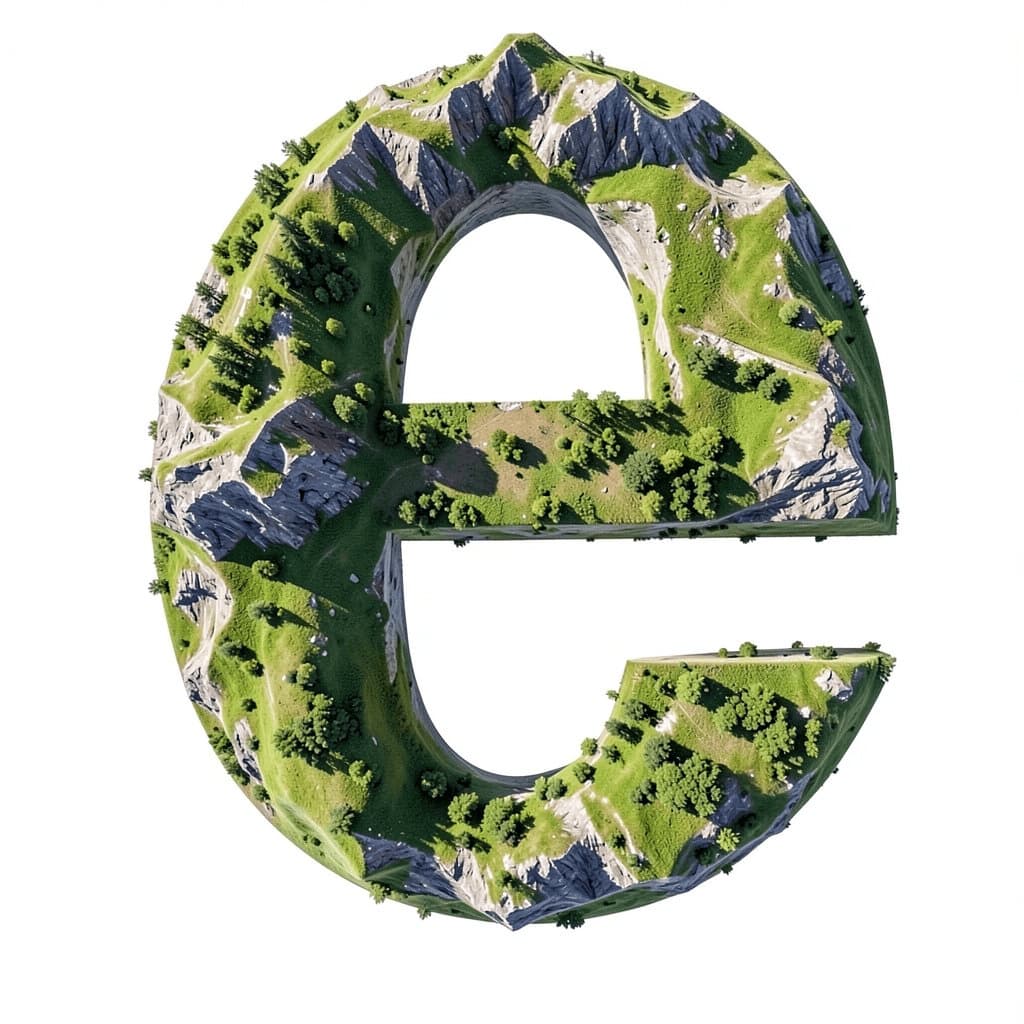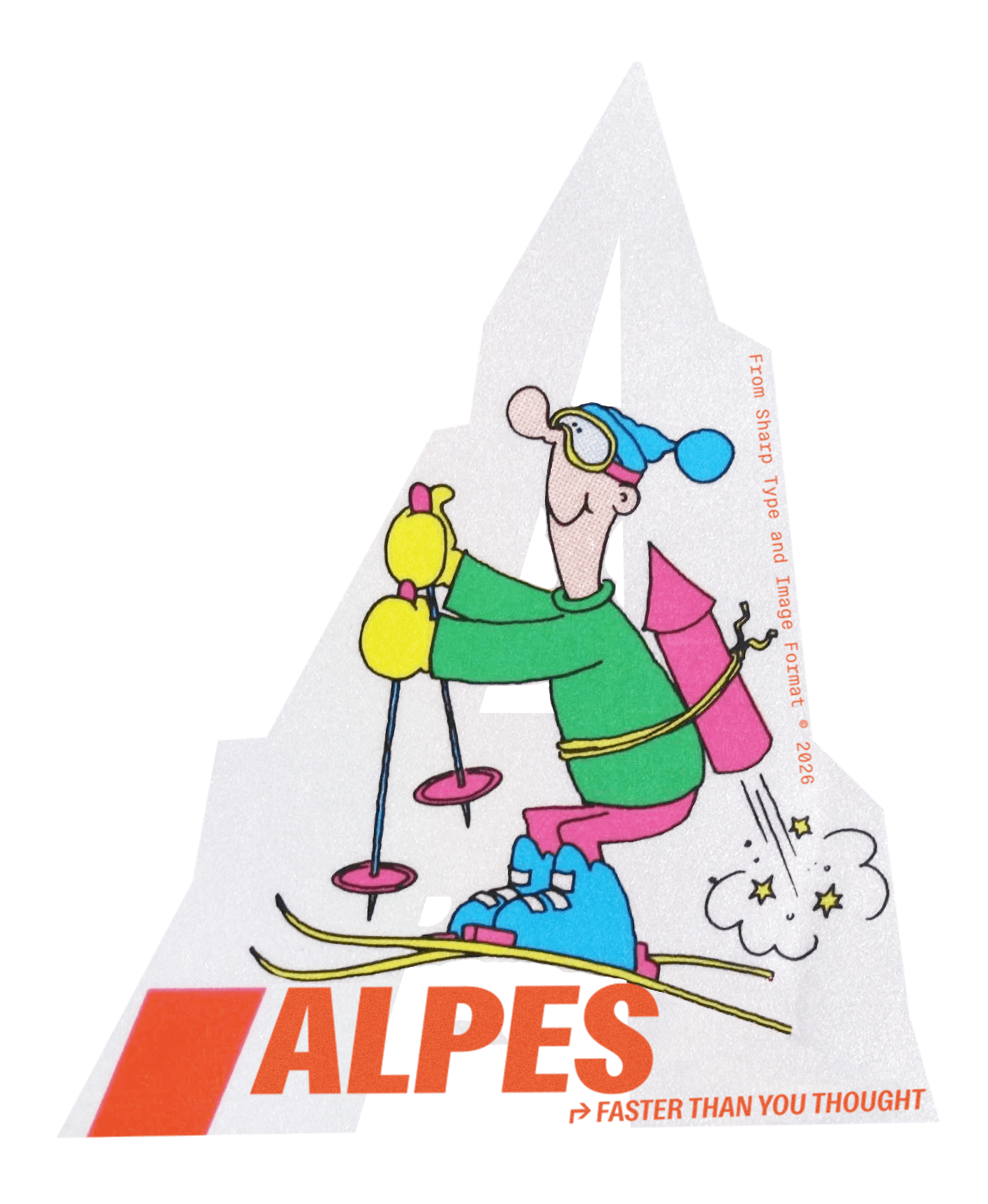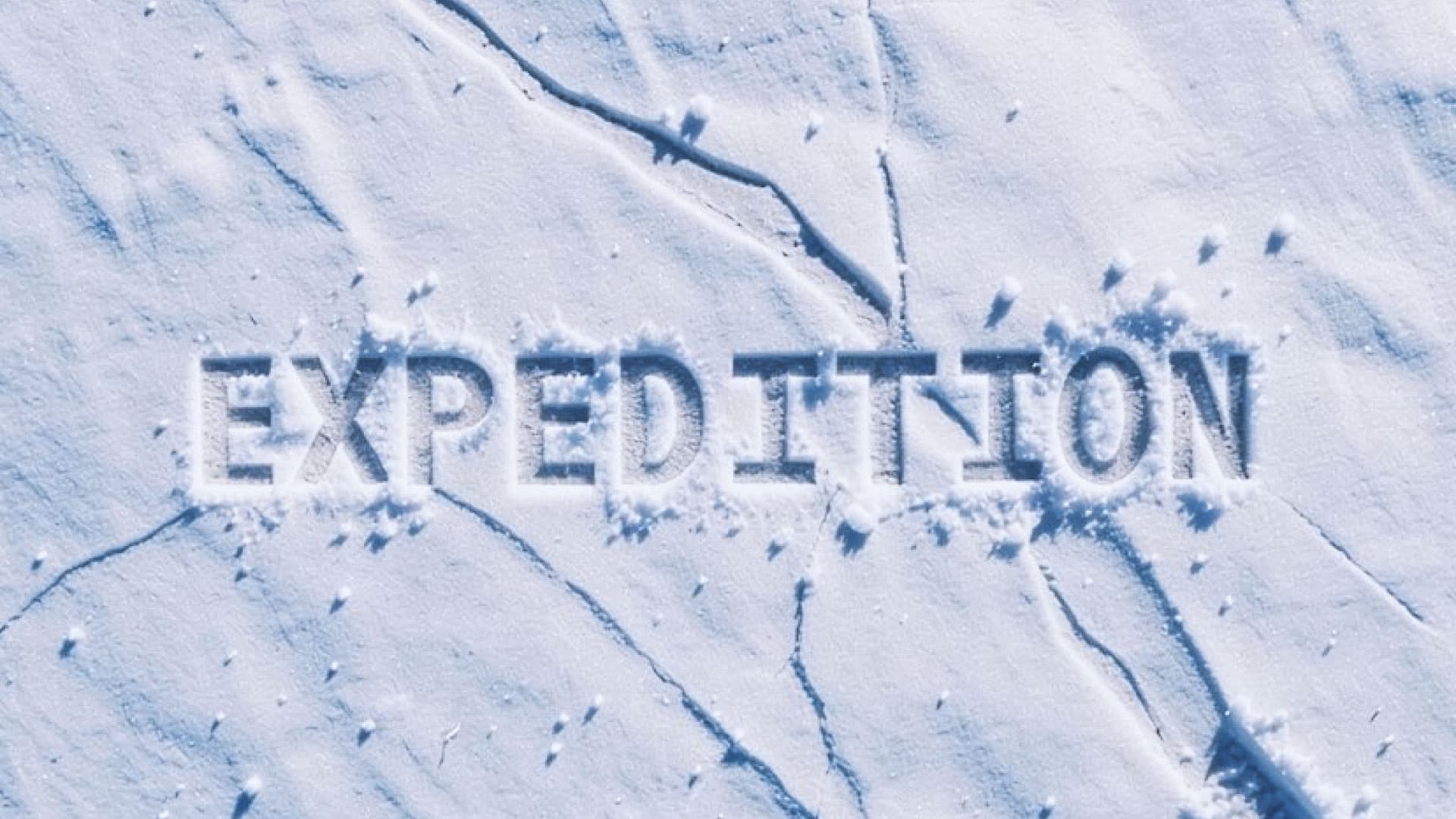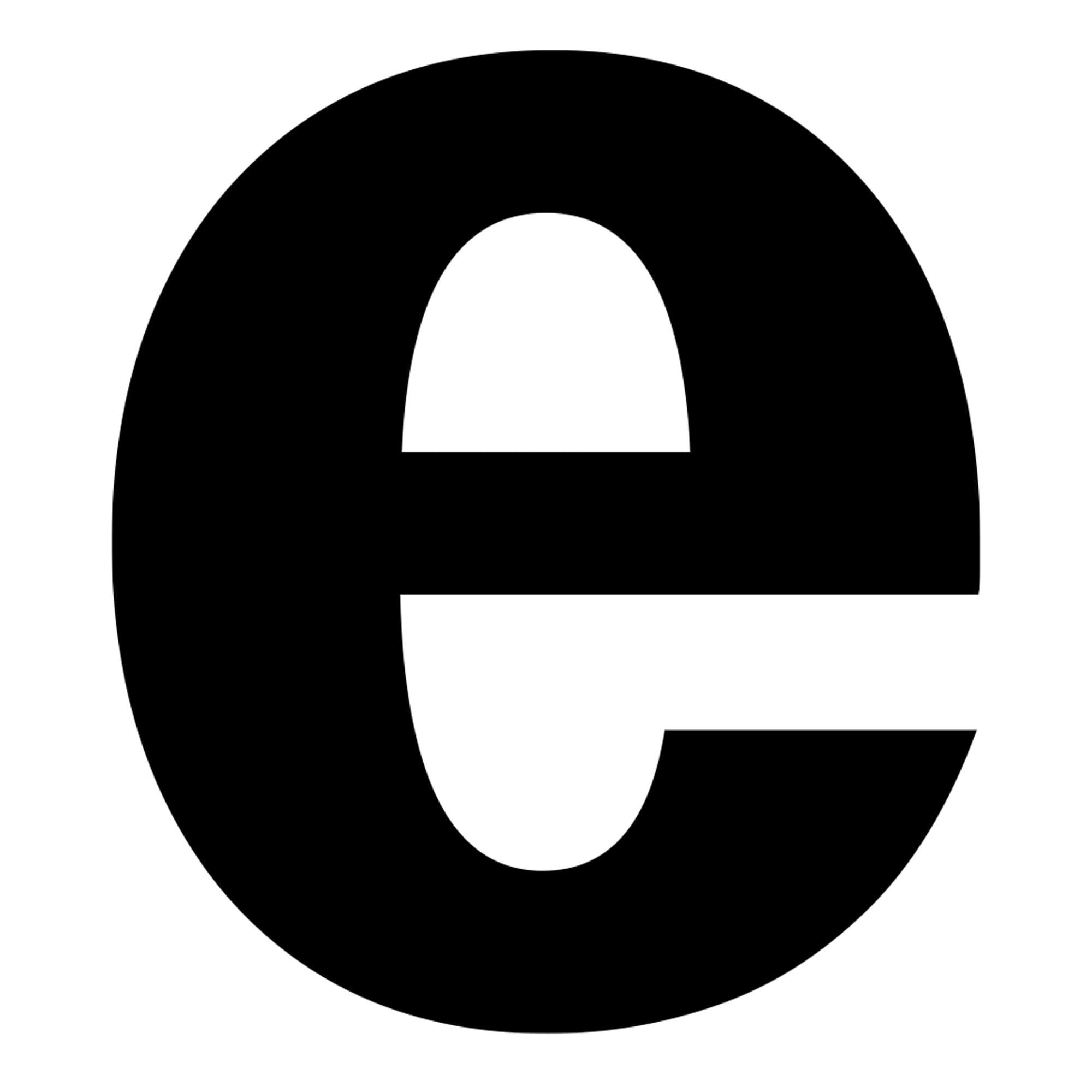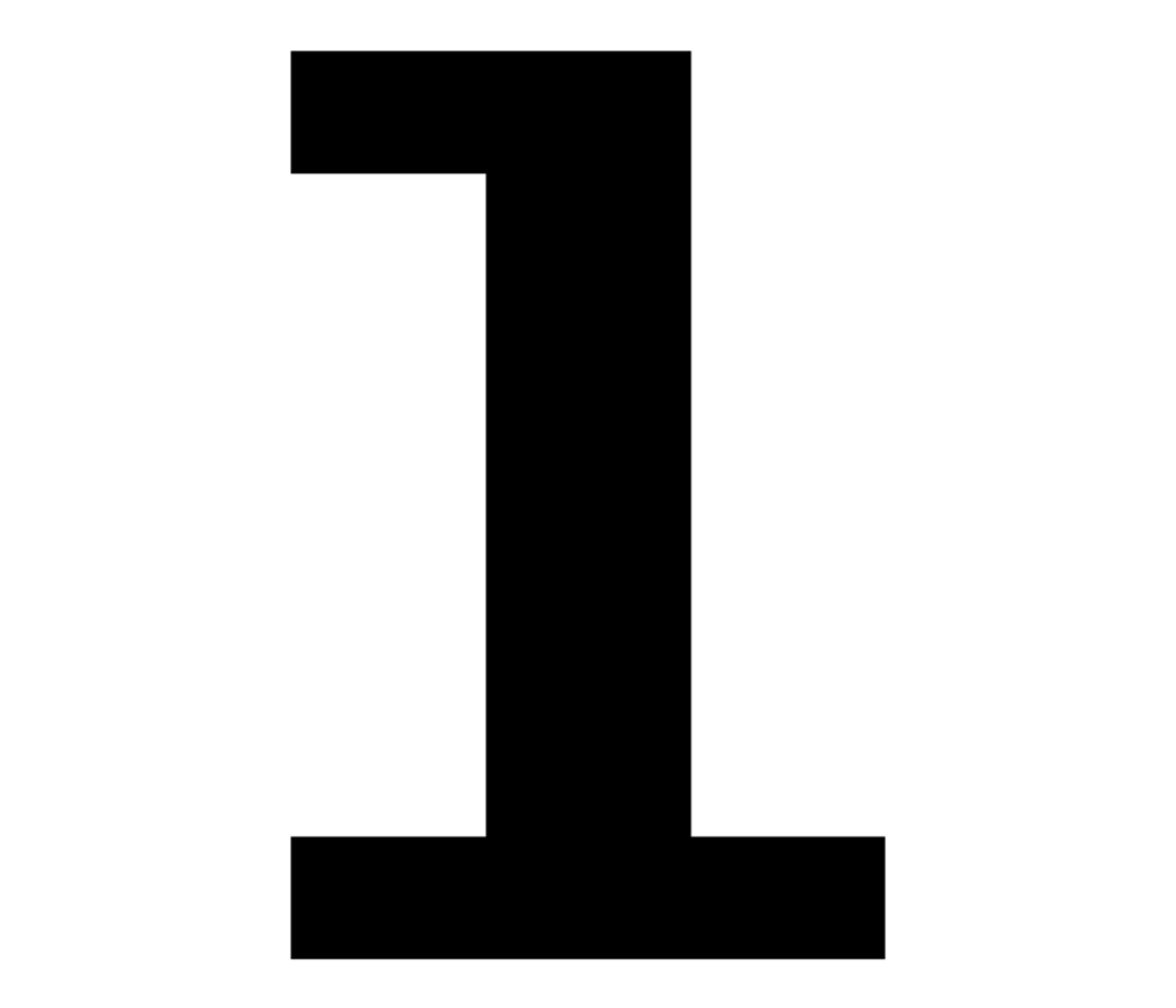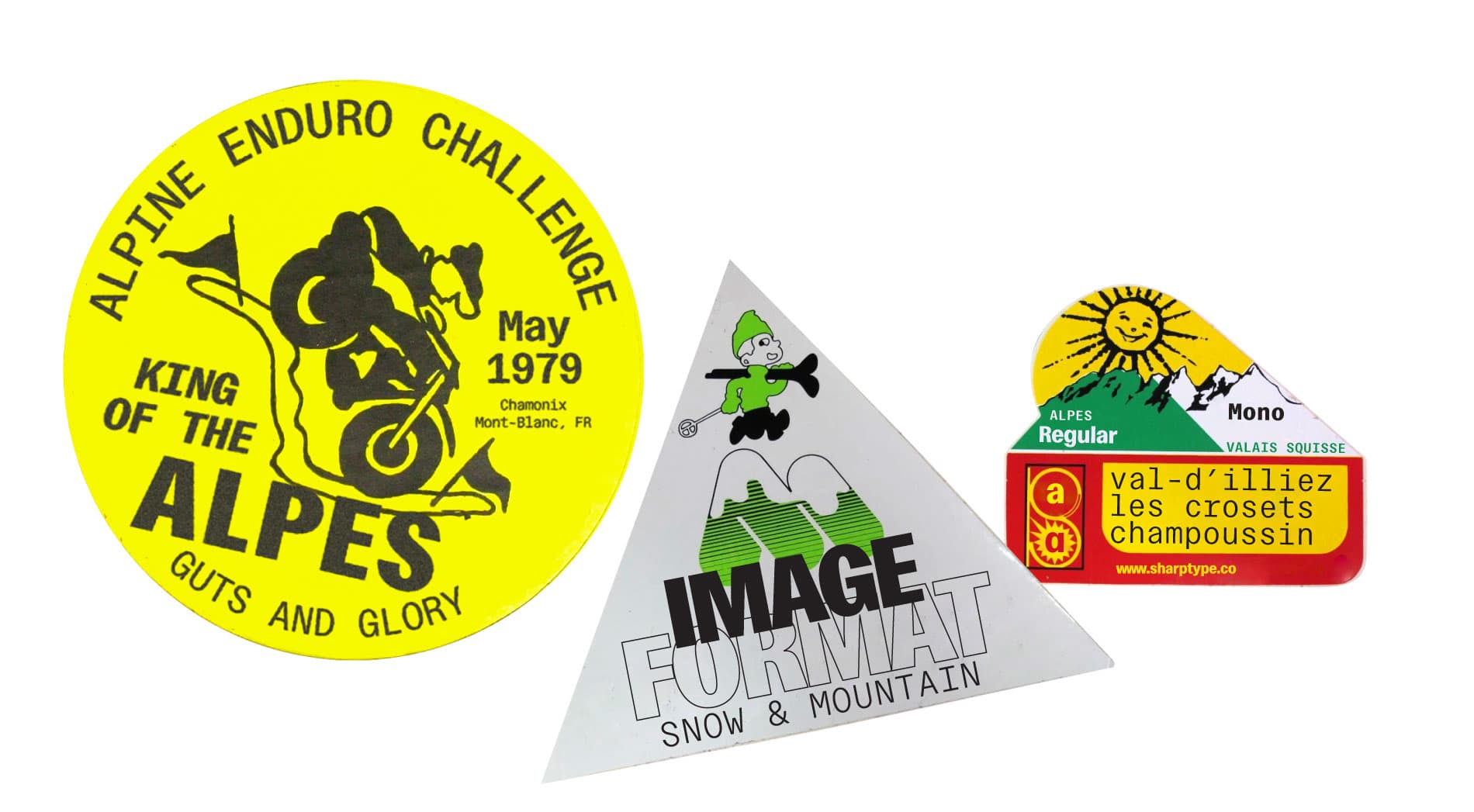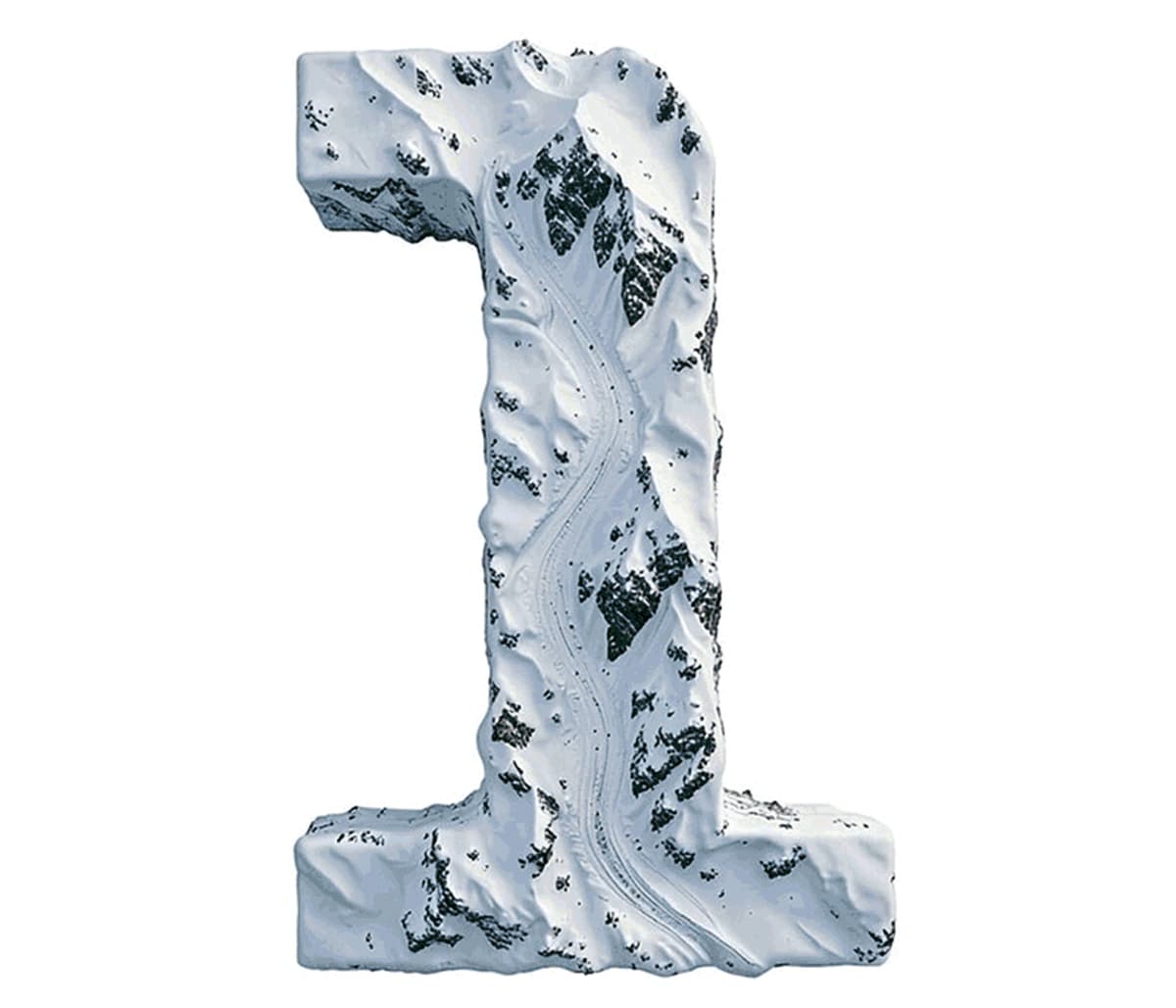
Alpes Mono
Alpes is a condensed grotesque superfamily offered in sans and mono styles in six weights. The second joint venture between Sharp Type and Image Format, Alpes arose on the bedrock principles of contrasted grotesques, but its final form is an adventurous departure: a pristine, all-terrain typeface sculpted by and for designers that ultimately extends the tradition of its genre forebears into liminal space, opting for distinction without sacrificing readability or quality. With its switchbacking curves, sharp angles, and steely straight lines, Alpes can be defined as a balance of extremes: a font of 1) compact build with an expressive personality that 2) works at scales monumental to miniature in 3) contexts ranging from editorial to technical.